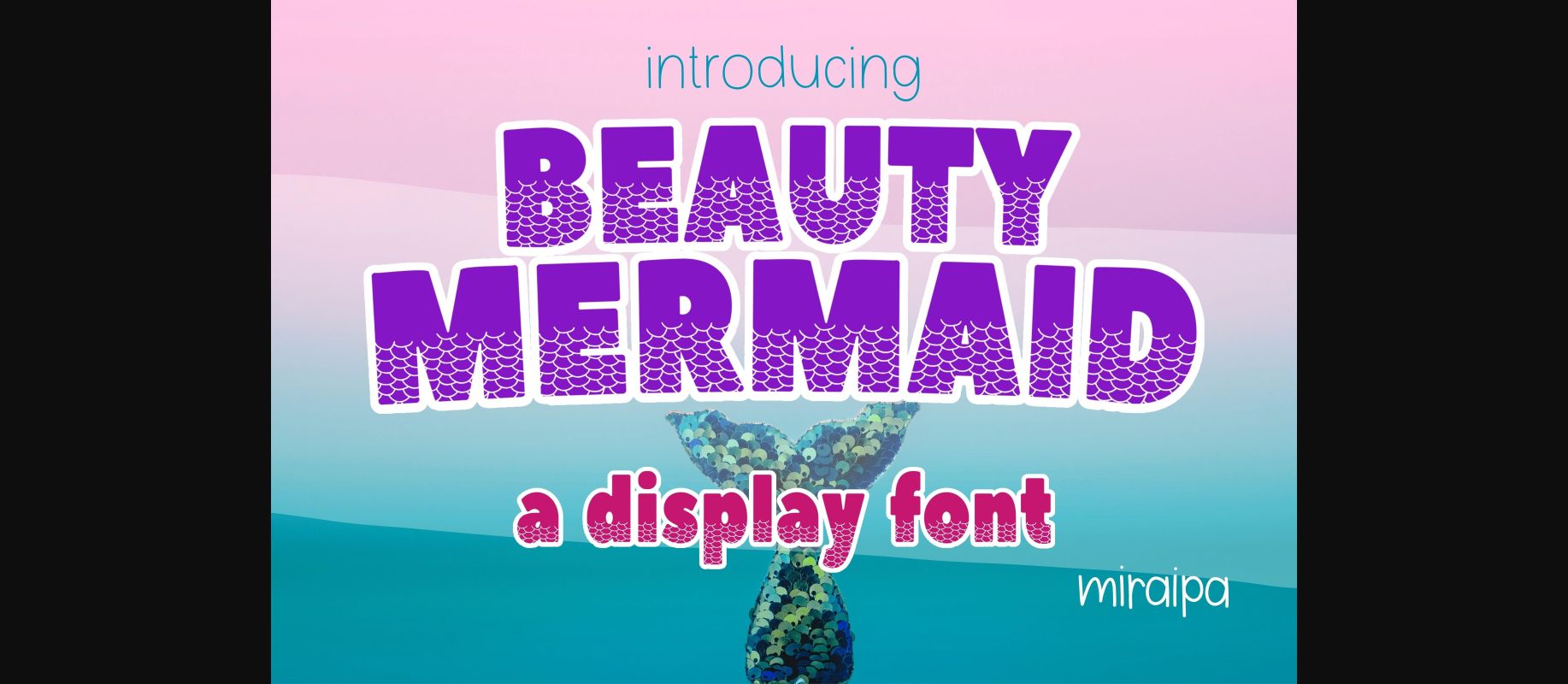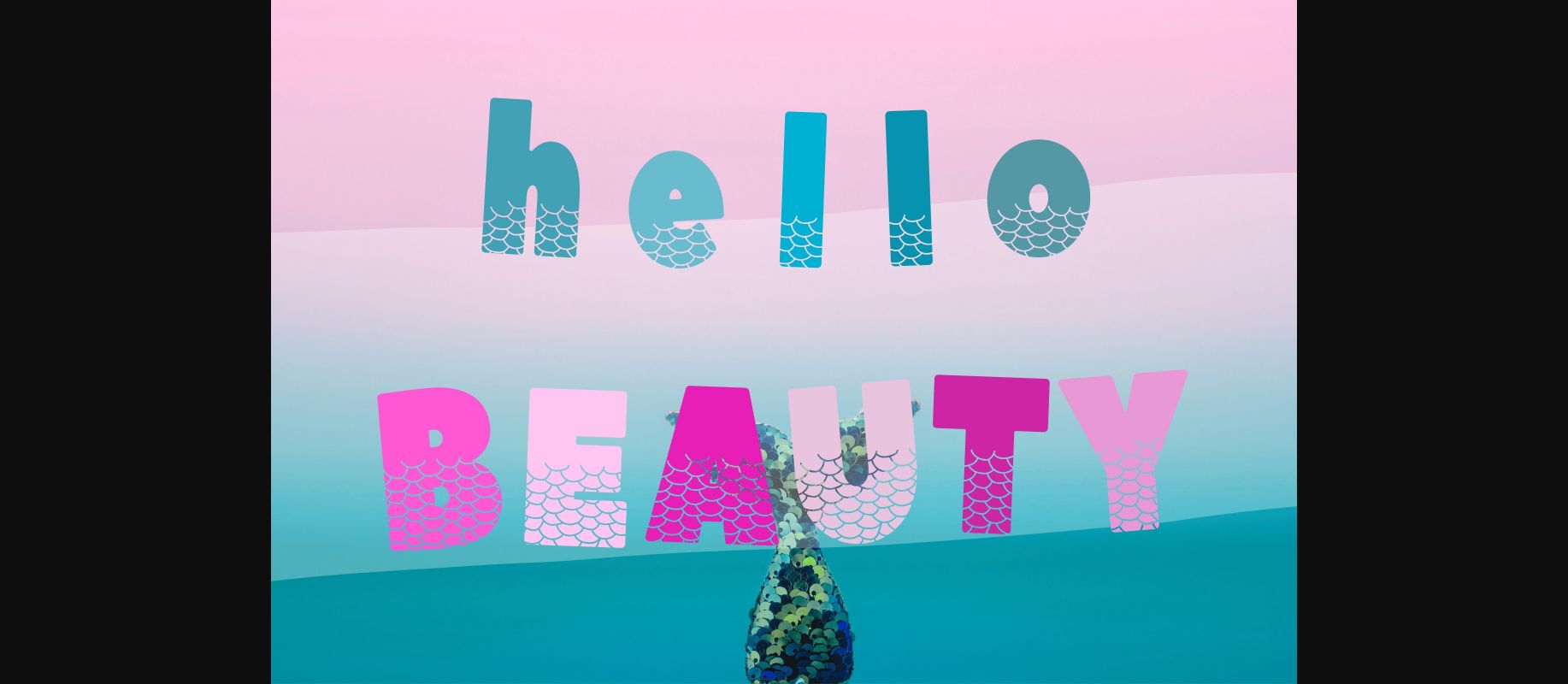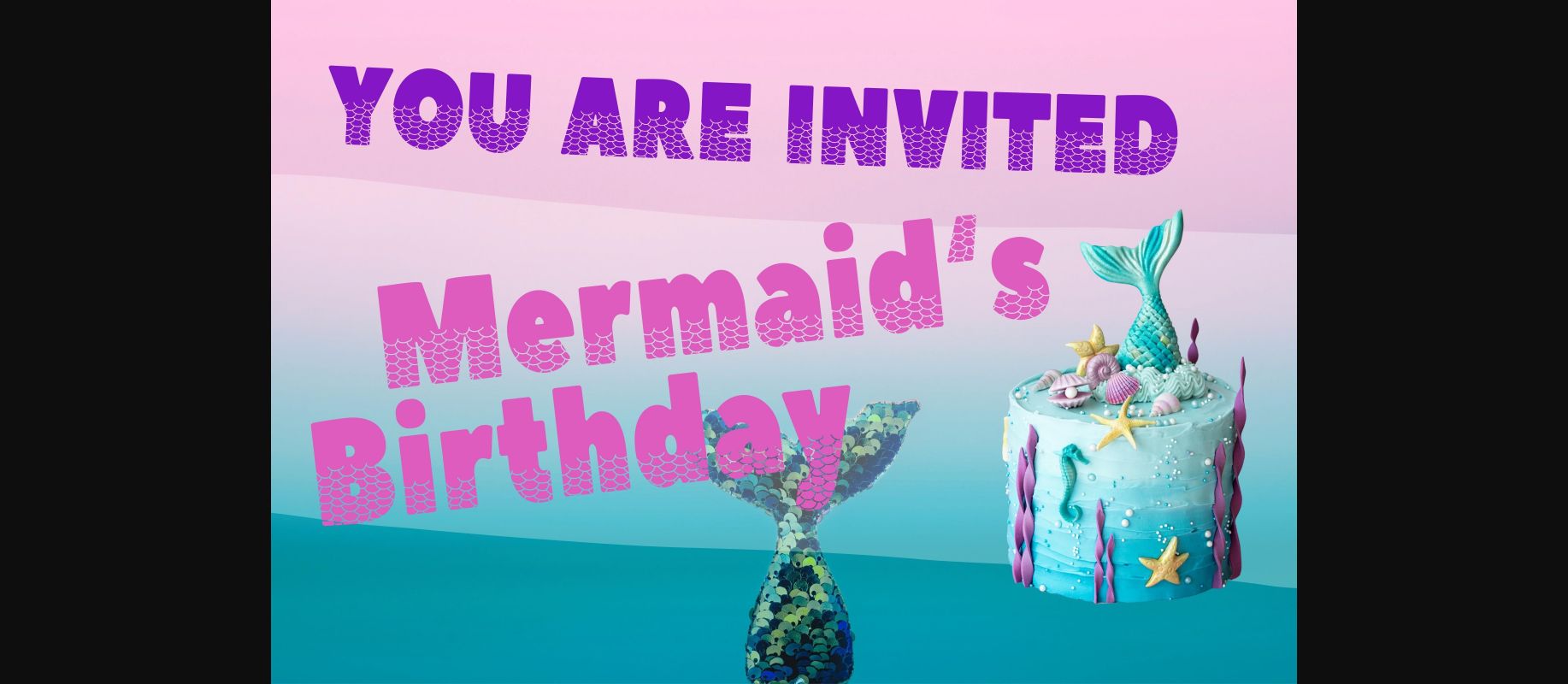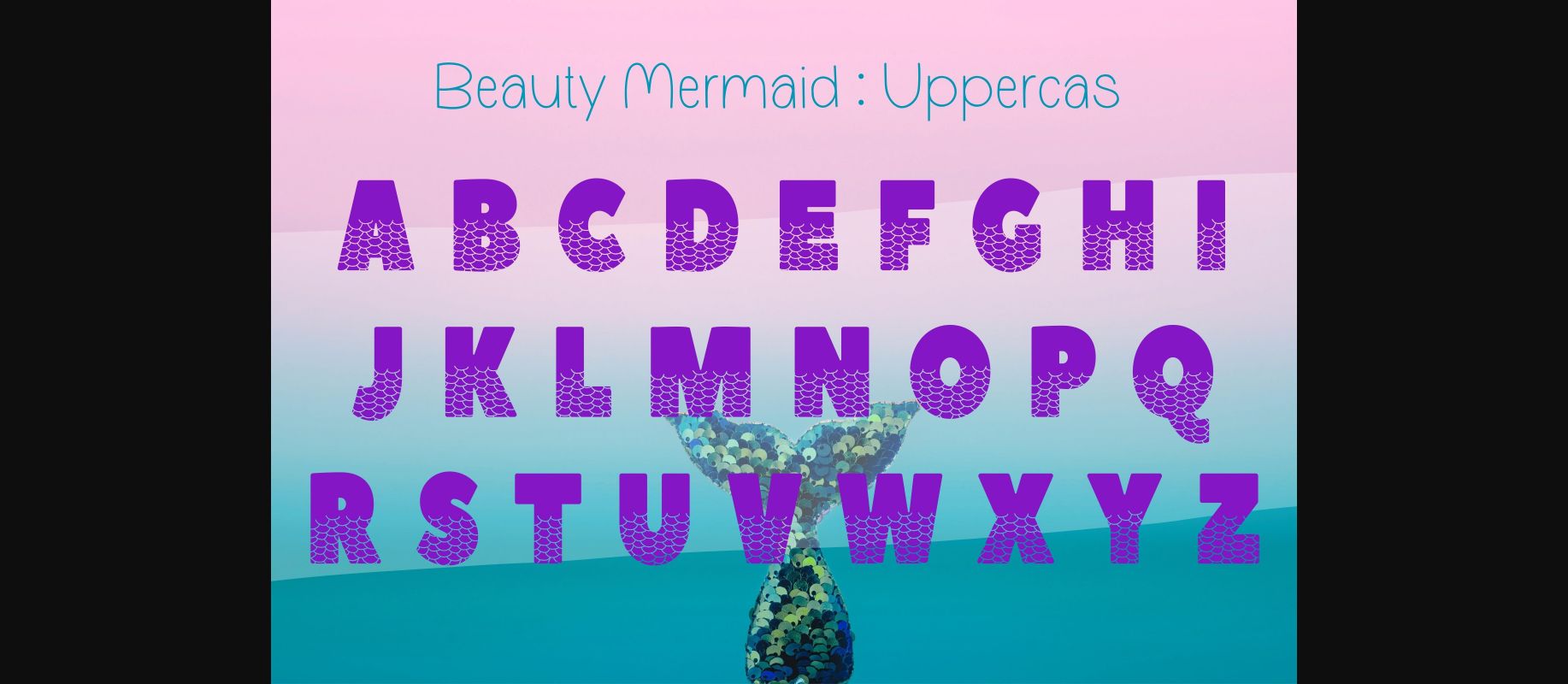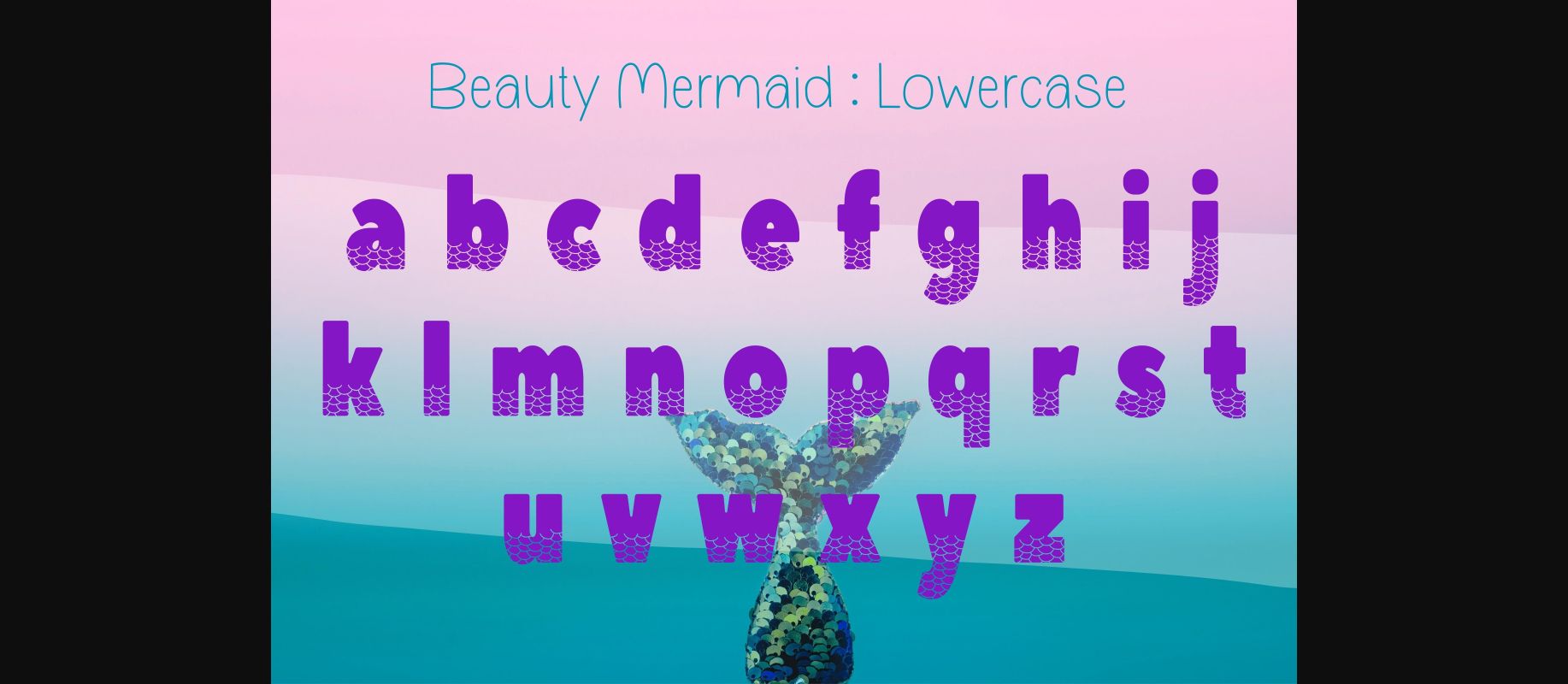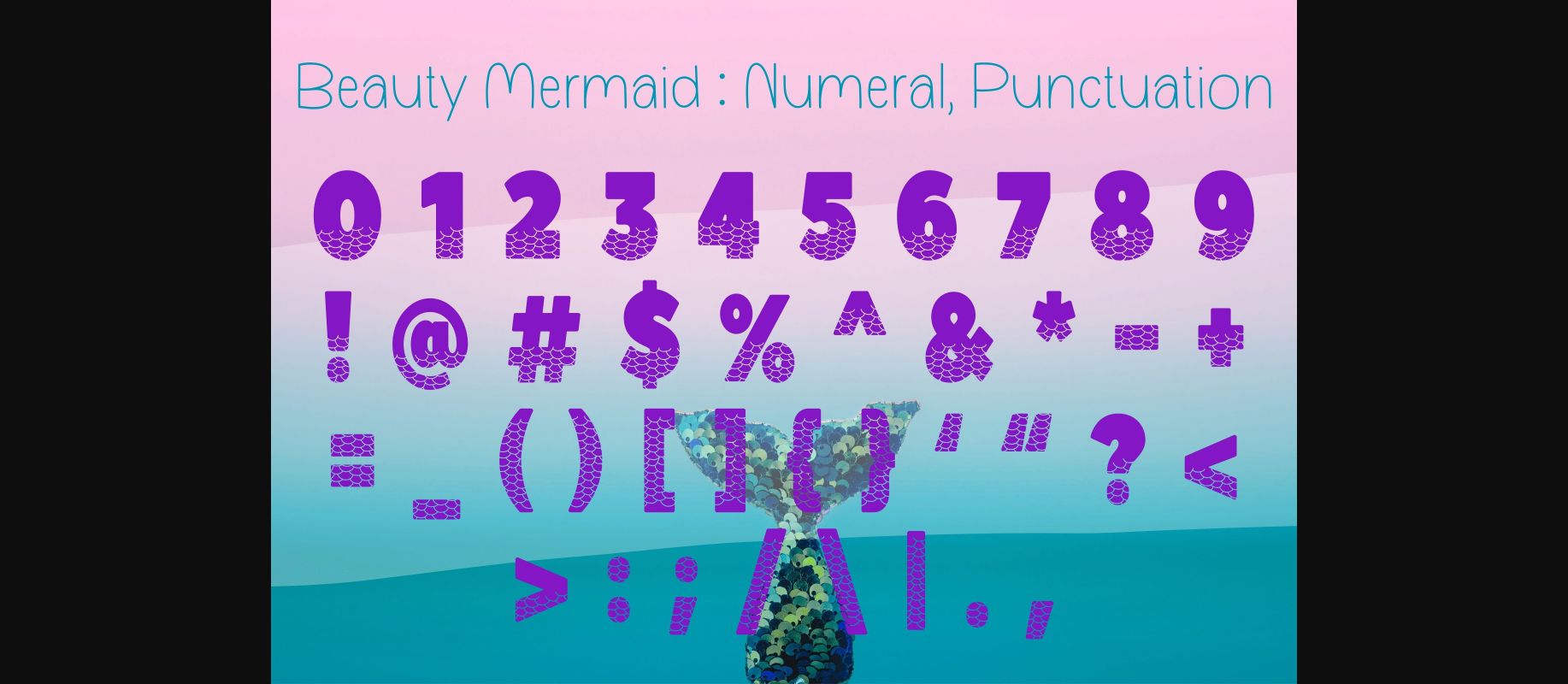
Beauty Mermaid Font
About Beauty Mermaid Font
Beauty Mermaid is an incredibly cool and unique decorative font. It has a modern yet whimsical style and it will undoubtedly immerse your designs into a magical world.